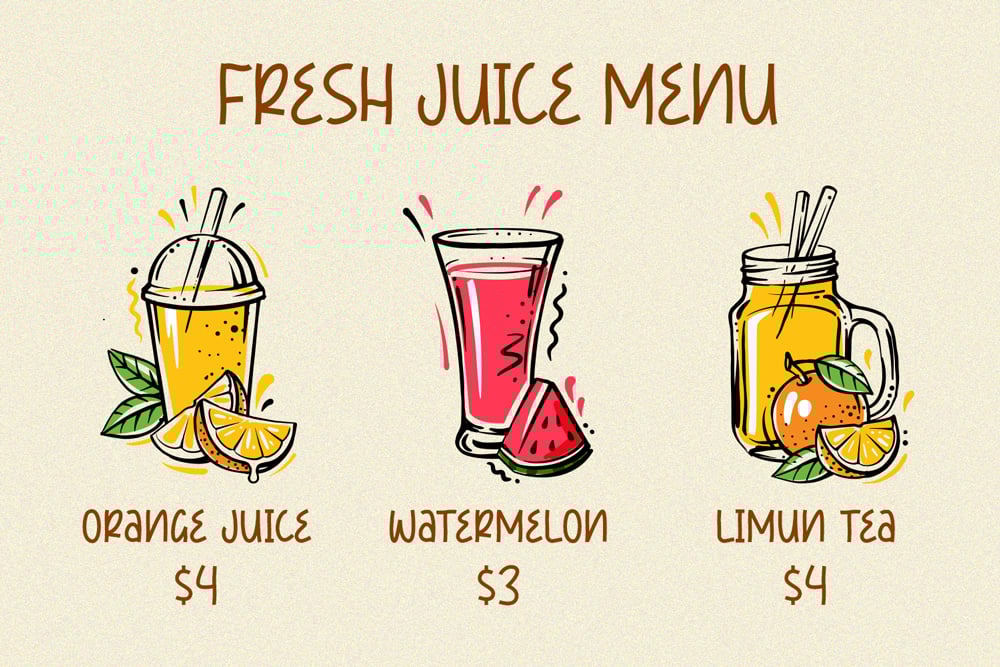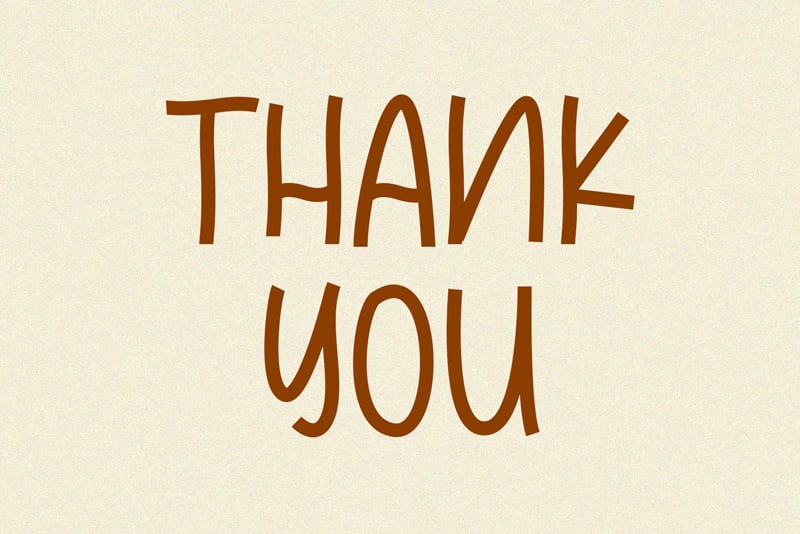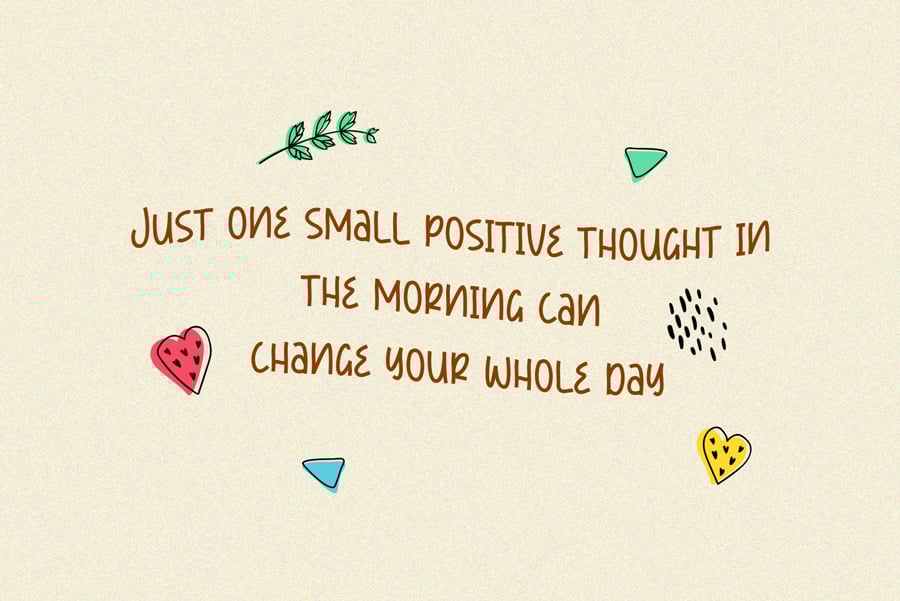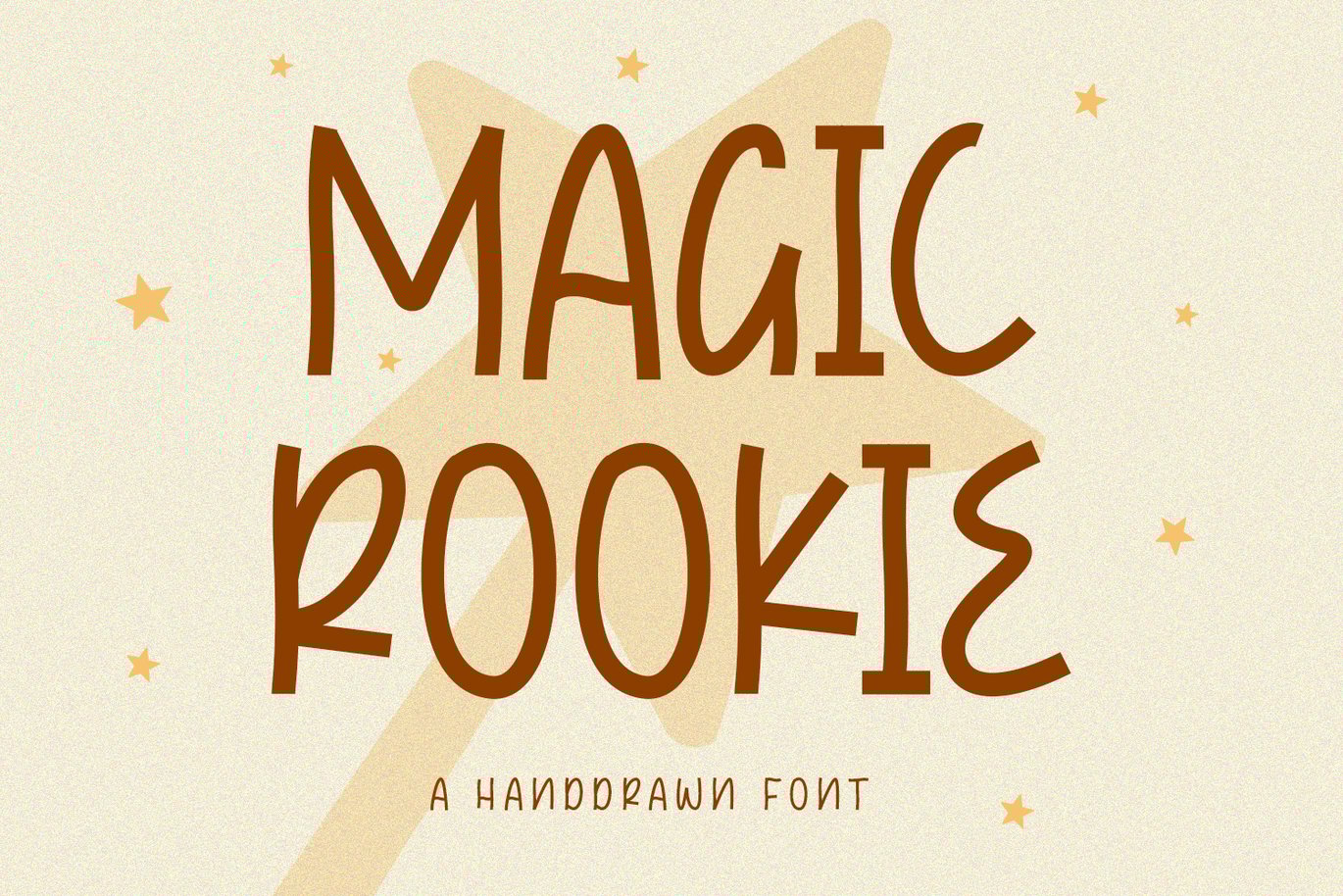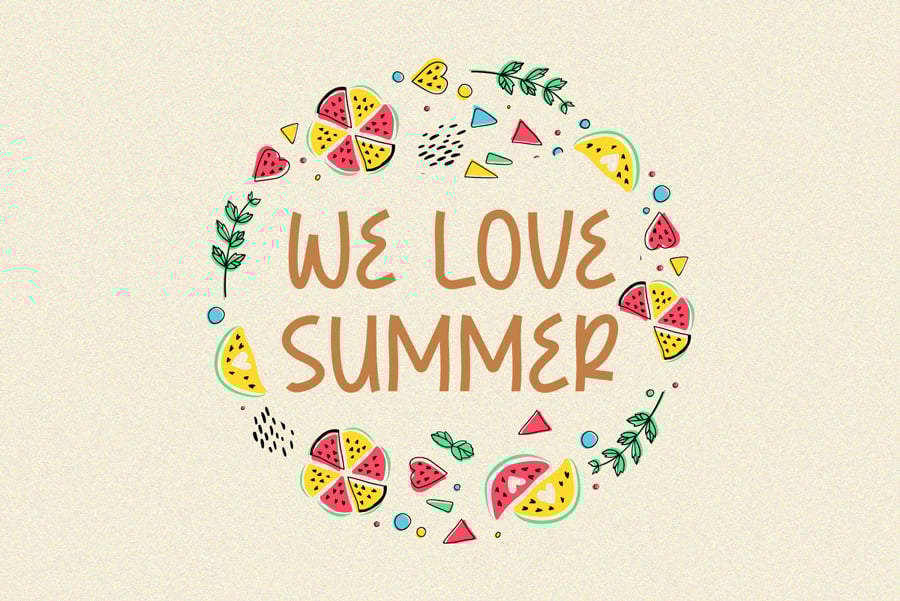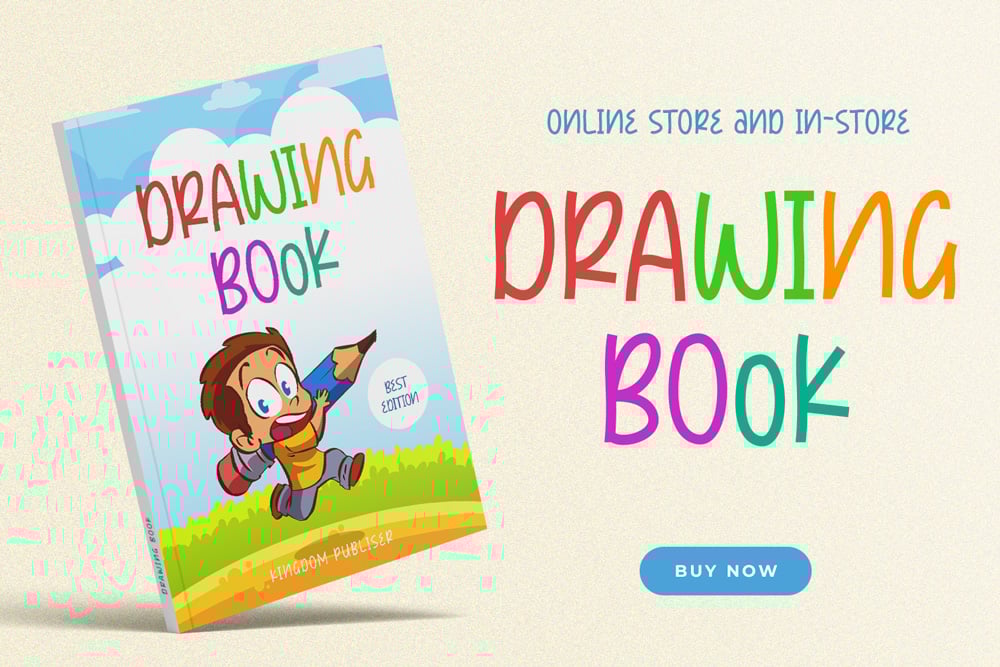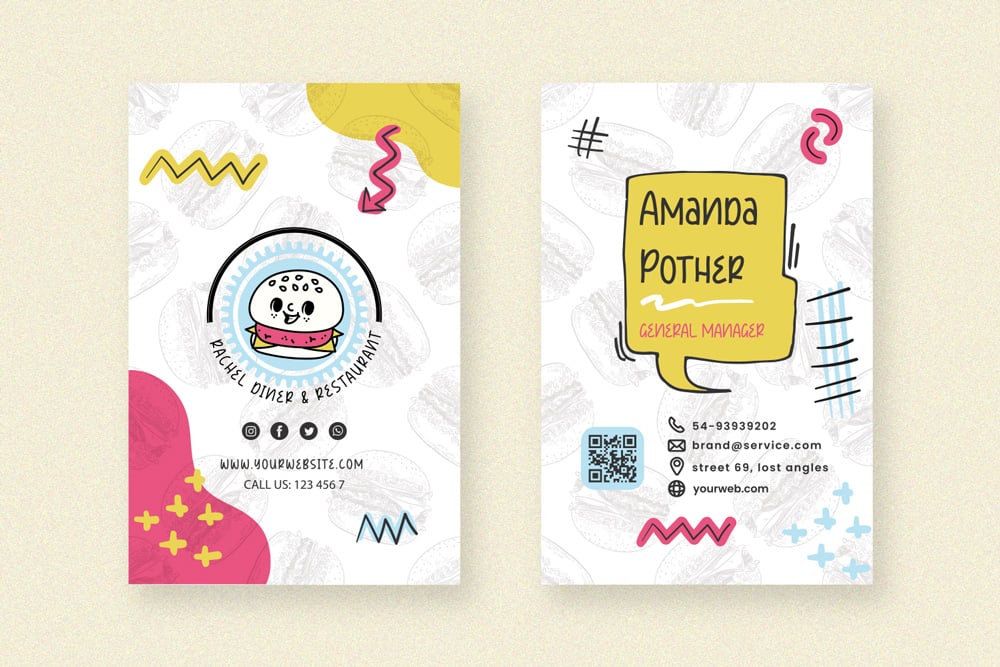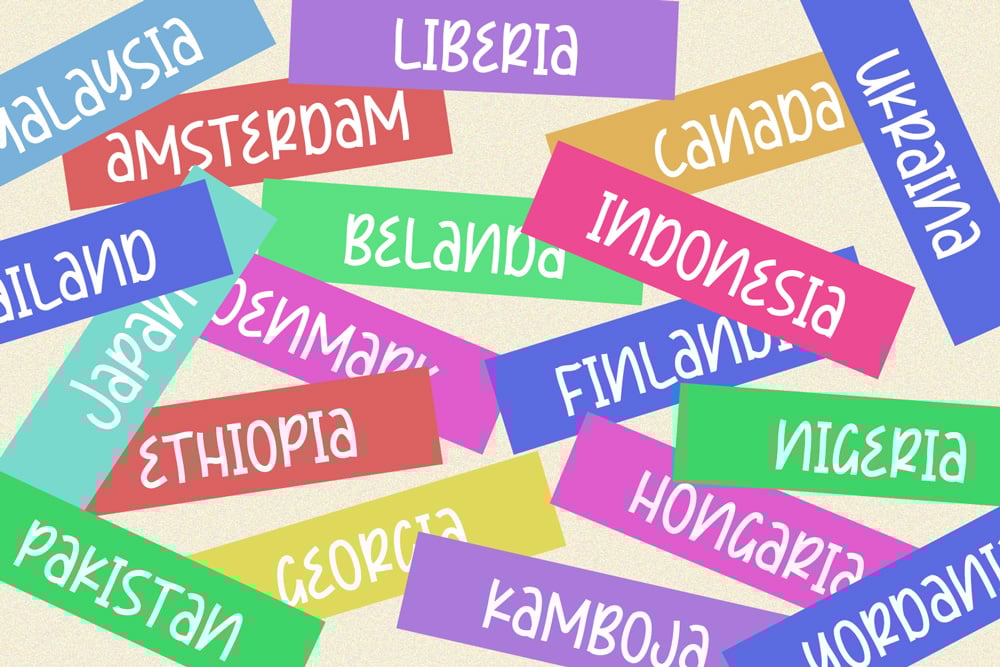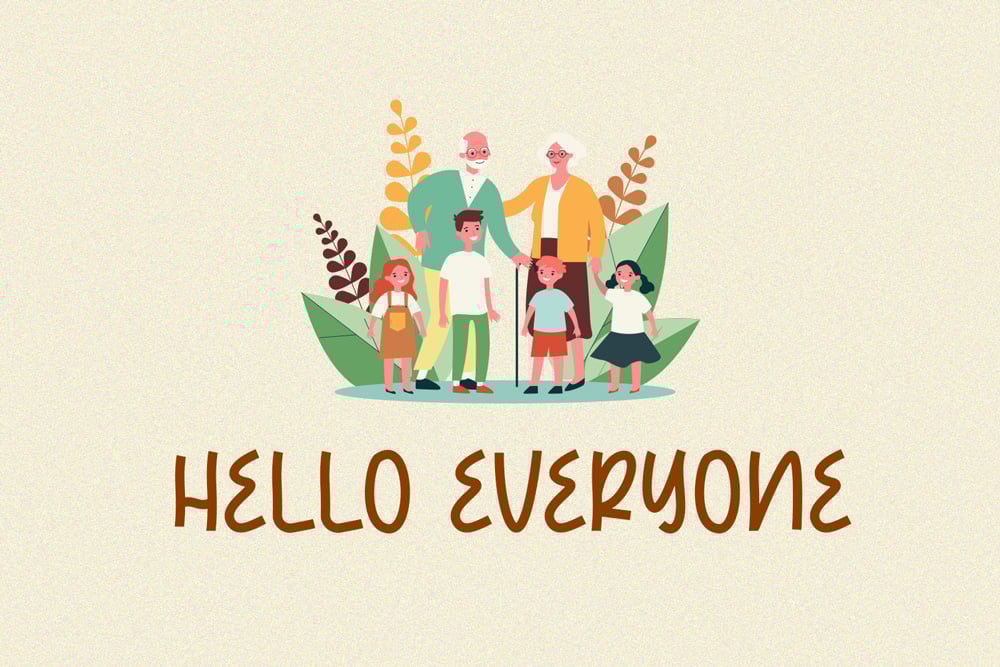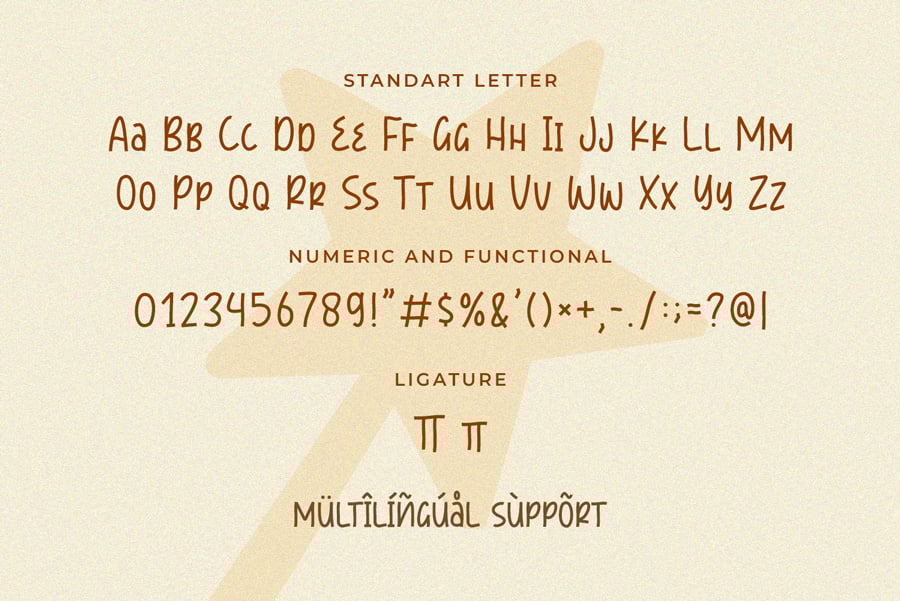
Magic Rookie A Handdraw font
introducing a new playful display font is Magic Rookie. Magic Rookie is playful diplay look, child and joyful. This font suitable for logos, packaging designs, posters, business card, cover, broadcast, quotes, books, etc. Let’s we go, to make you business go to next level with Magic Rookie.